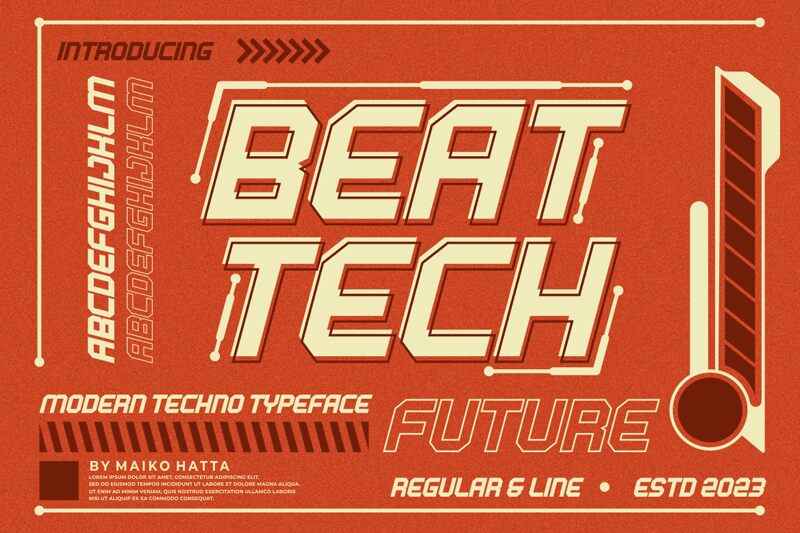
BEAT TECH
Beat Tech font by Gilang Ternadho is a techno display typeface featuring angular geometric shapes and slanted dynamism. Its futuristic appearance visually strikes the reader’s attention, while the readability remains high thanks to its consistent proportion, spacing, and structure. This free font is in sans-serif style with large openings that make it a great heading or text body choice.
Use Beat Tech for posters, ads, social media posts, books or magazine covers and pages. It is ideal for web design projects like blogs as well as website banners. Use it to enhance UI/UX design scripts or mobile apps’ UI screens. Decorate event stationery as much as corporate branding products like business cards or packaging design labels with this font!